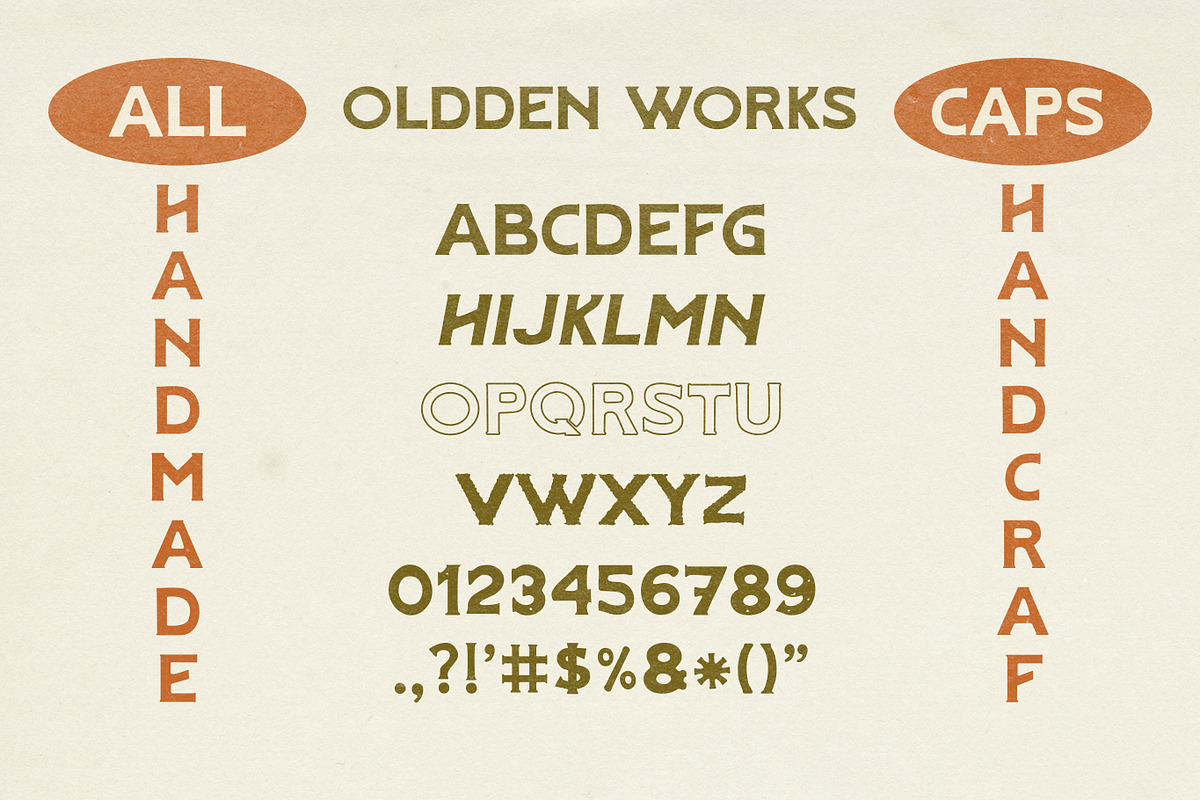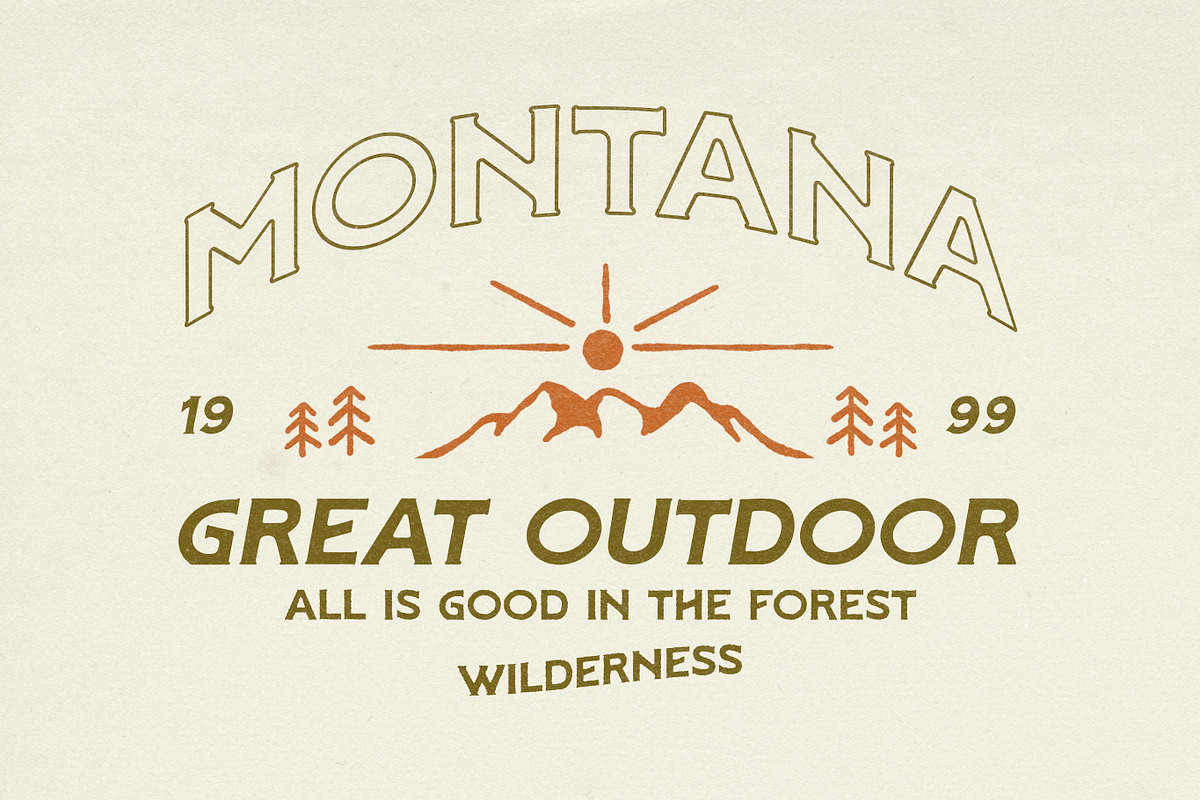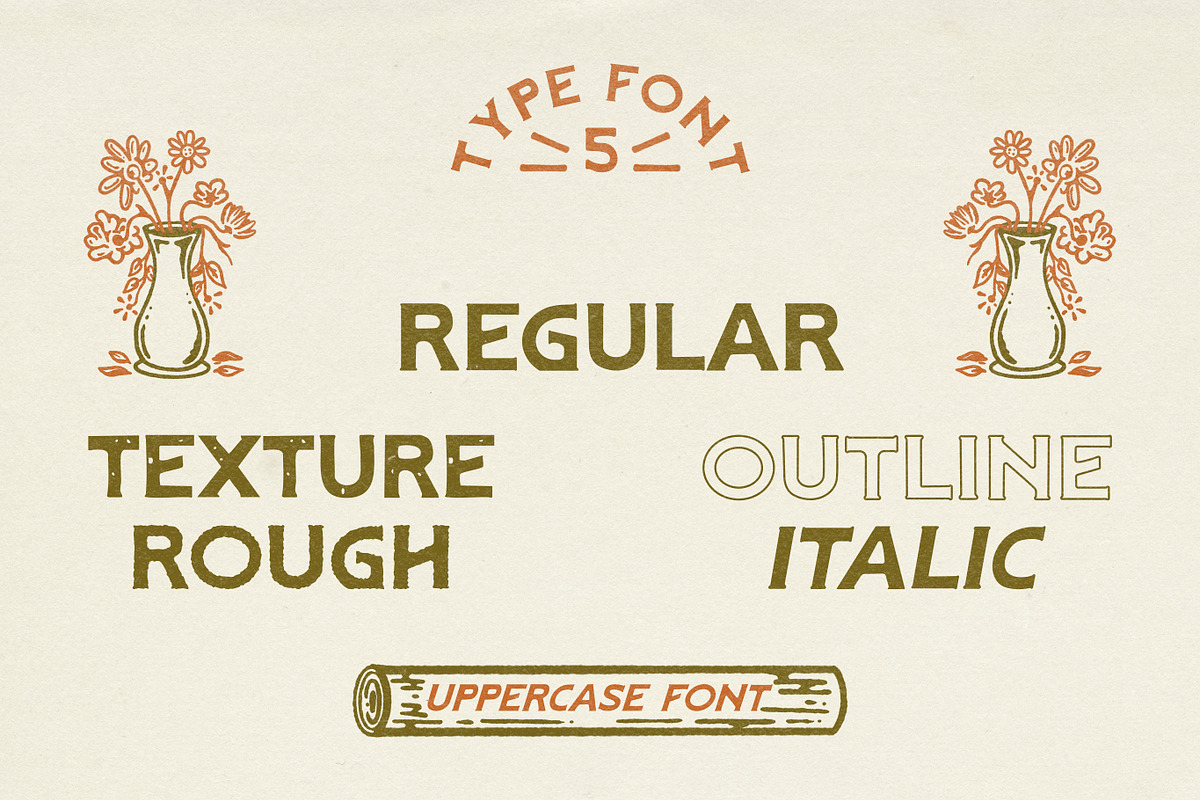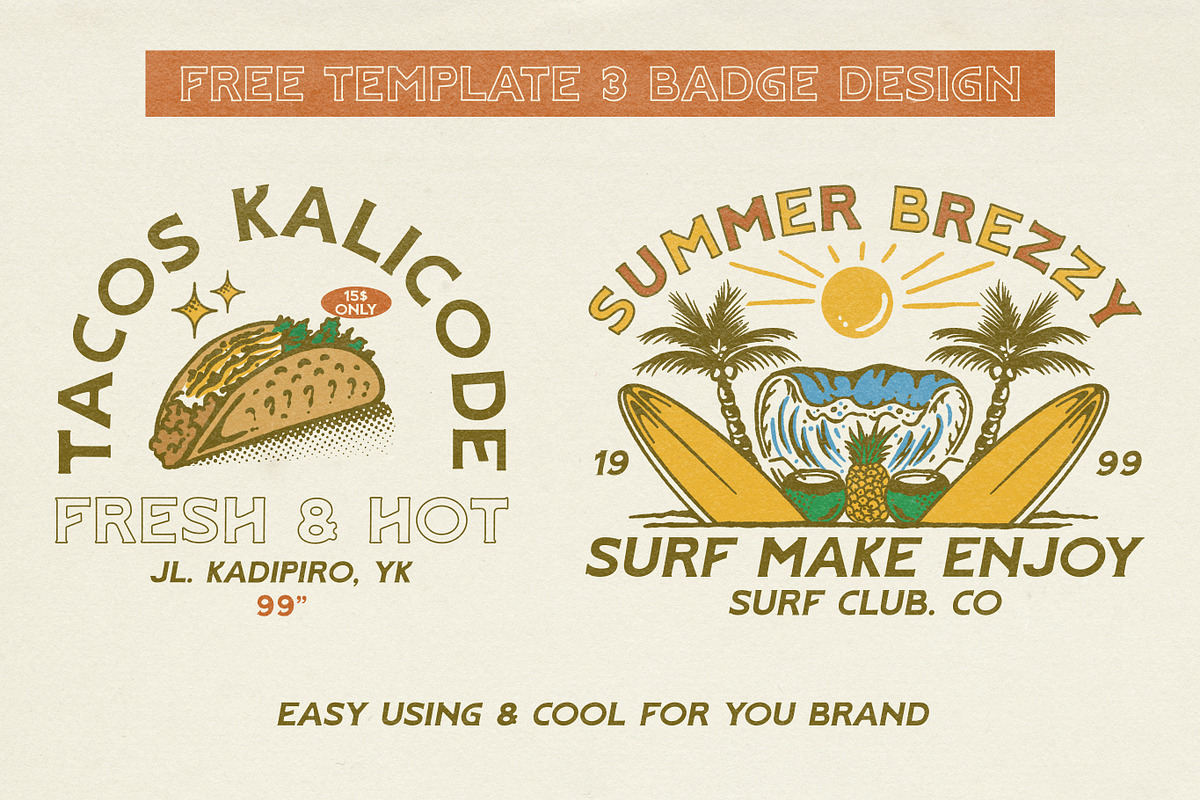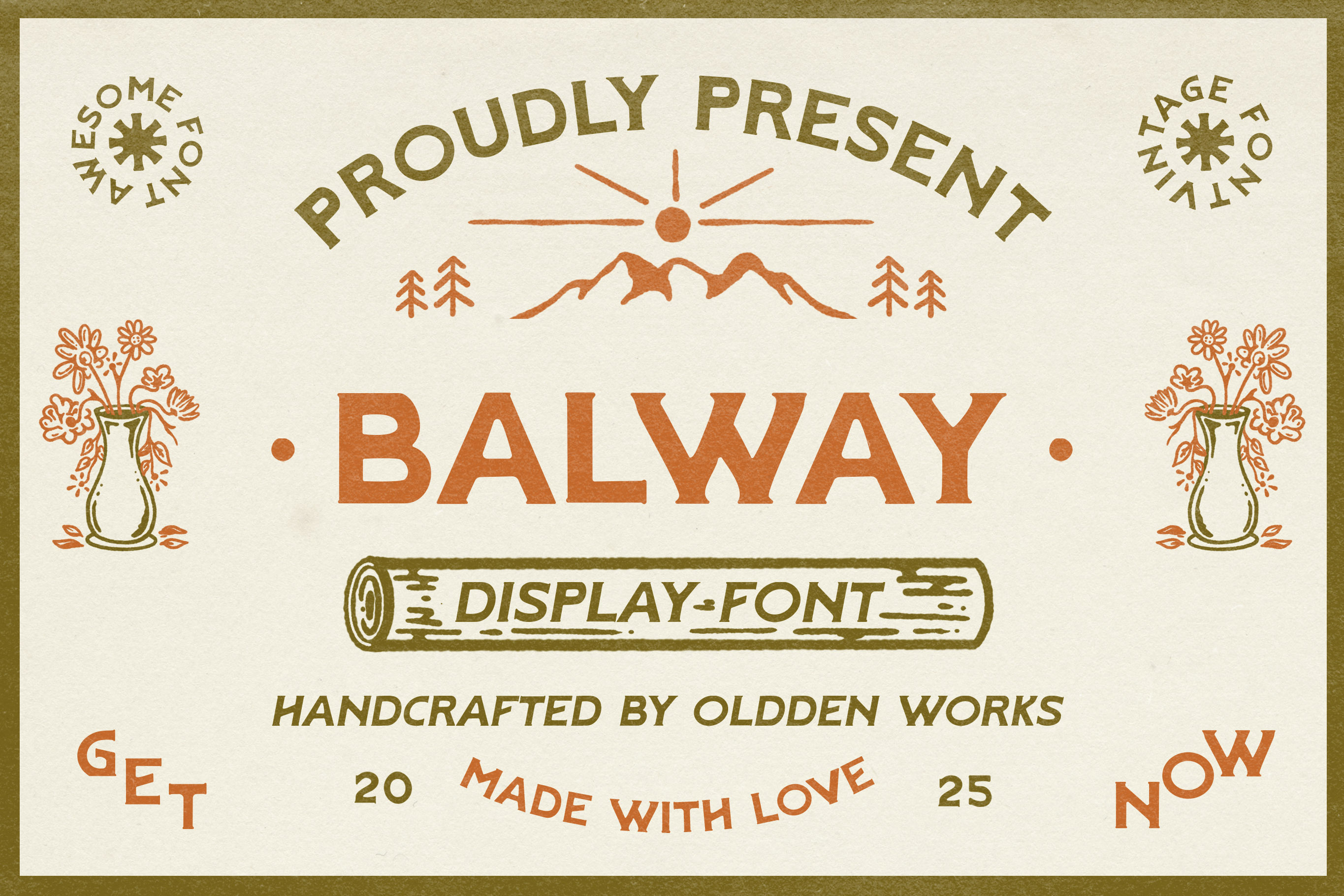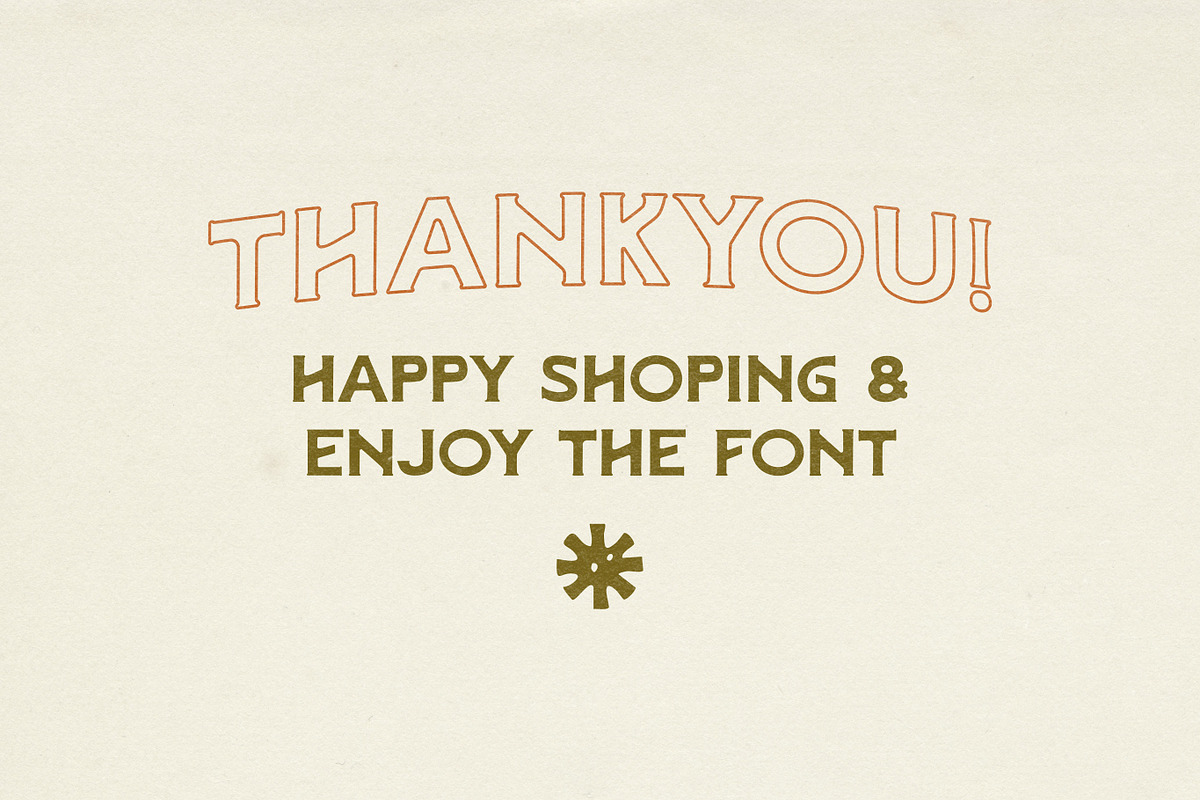
Balway Typeface
Introducing Balway Typeface!
Balway Typeface! is a clean, vintage inspired font that comes in 5 different styles: Regular, Italic, Outline, Rough, and Texture. This font is ideal for your branding, product packaging designs, and other creative projects. In addition, there are 3 design templates and illustrations in vintage style that you can change. We hope you like it!